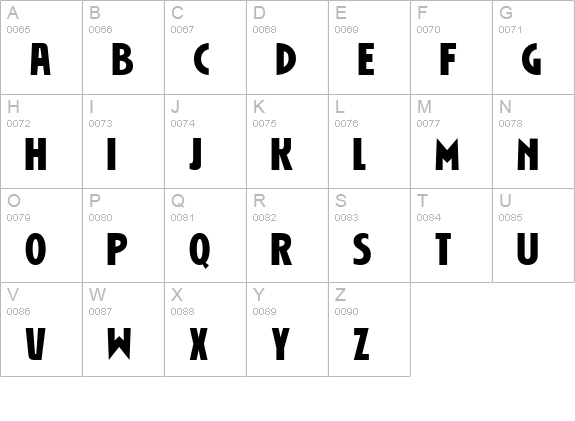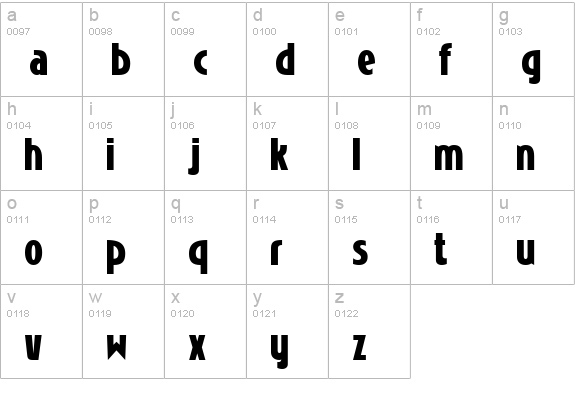
Niobium Font Details
Introducing Niobium, a sleek and modern font that exudes sophistication and style. With its clean lines and elegant curves, Niobium is perfect for a wide range of design projects, from branding to editorial design. This versatile typeface is sure to make a statement and leave a lasting impression on your audience. What's even better is that Niobium is available for free download at FontsMarket.com. This means you can add this stunning font to your collection without spending a dime. Don't miss out on the opportunity to elevate your designs with Niobium's unique and eye-catching aesthetic. Download it today and start creating beautiful typography that stands out from the crowd.